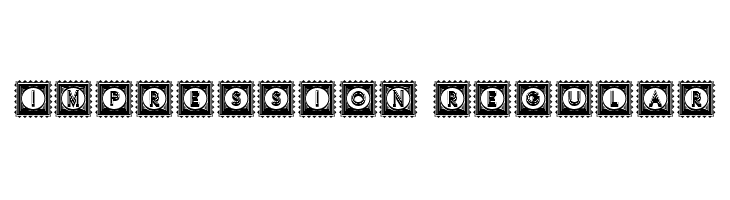
A bold, decorative font with characters in stamp-like borders.
A decorative font with characters enclosed in ornate, stamp-like frames.
A vintage, decorative font with characters in stamp-like borders.
A vintage, decorative font with ornate, framed characters resembling postage stamps.